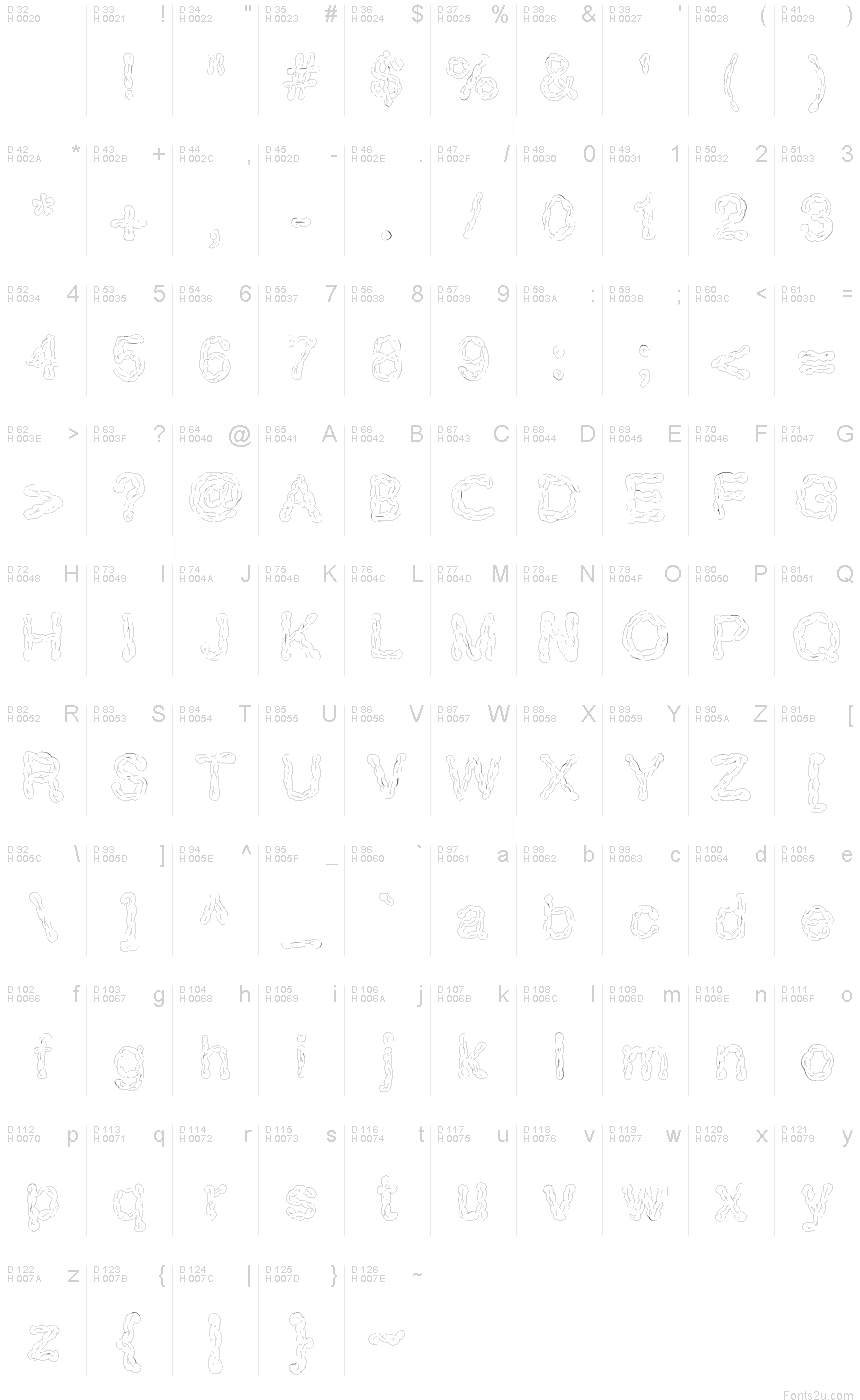
Brains
p.s. I created this font on my iPad with the app FontMaker so you'll need to play with the kerning. Also if the lines seem thin its meant to be a colored font so play with the positive and negative space. You know be a designer and make it work for your project or not.
Brains